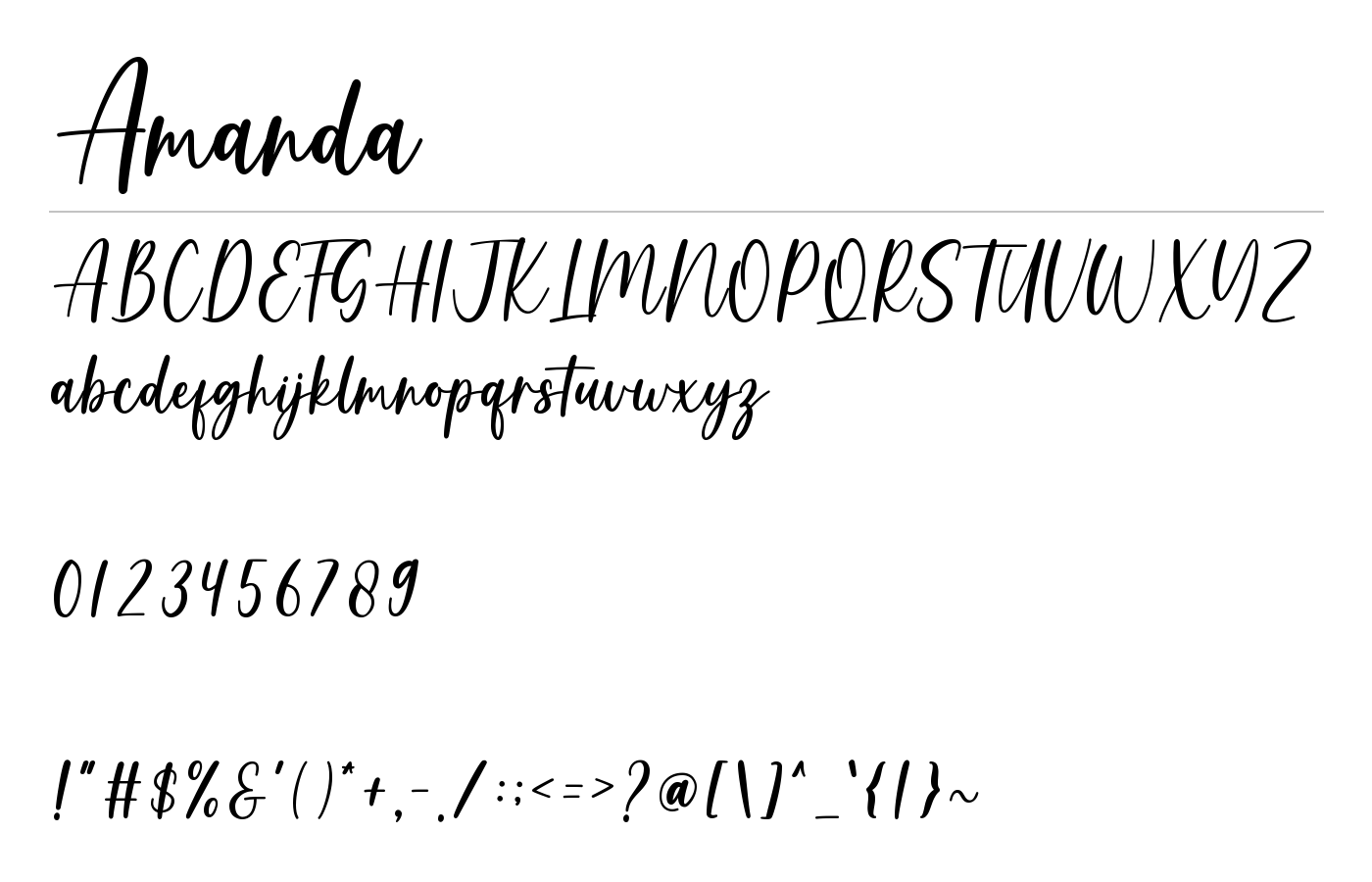
Amanda Font is a graceful and modern script font with a smooth, flowing style that feels both elegant and approachable. Its slender, slightly varied strokes and tall x-height give it a fresh, handwritten look perfect for branding, invitations, and stylish headlines where a personal touch is desired. This font works beautifully in creative and feminine designs, offering a sophisticated yet casual vibe.
Amanda Font
About Amanda Font
| Font family | Amanda Font |